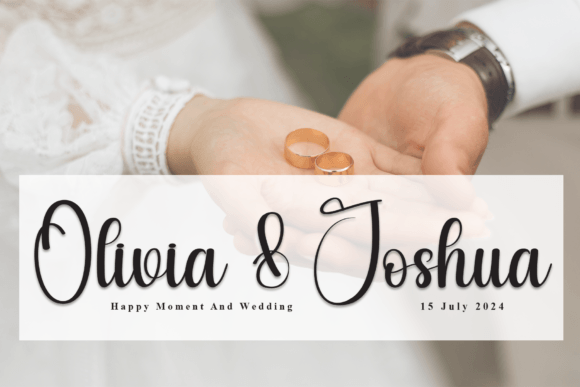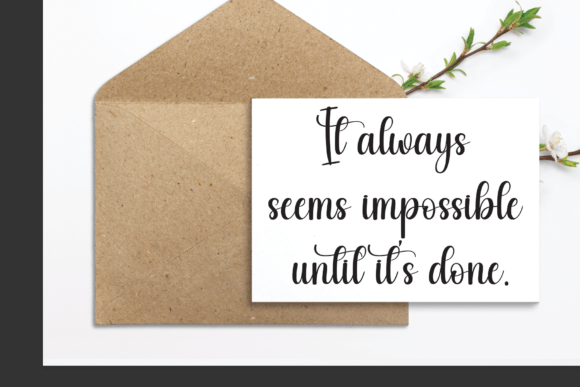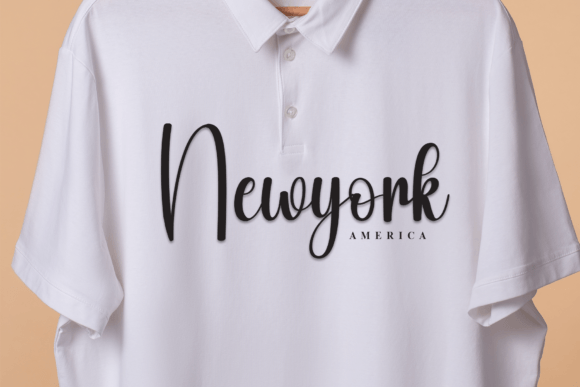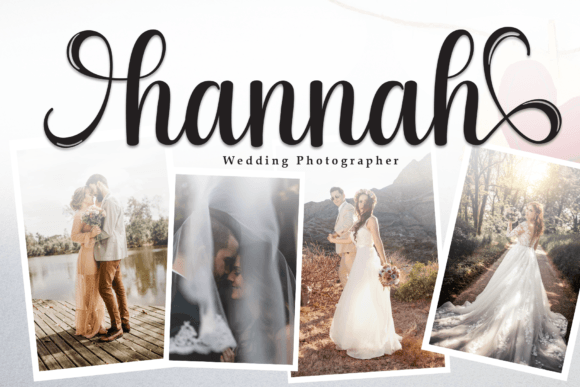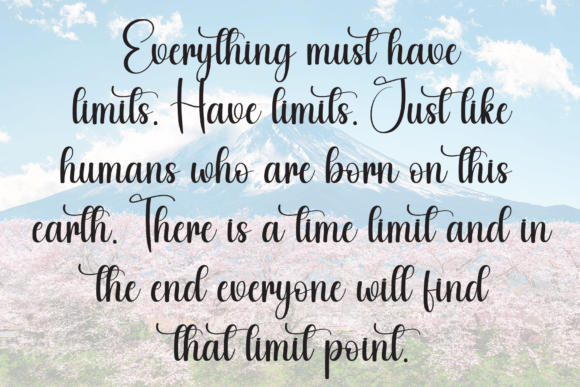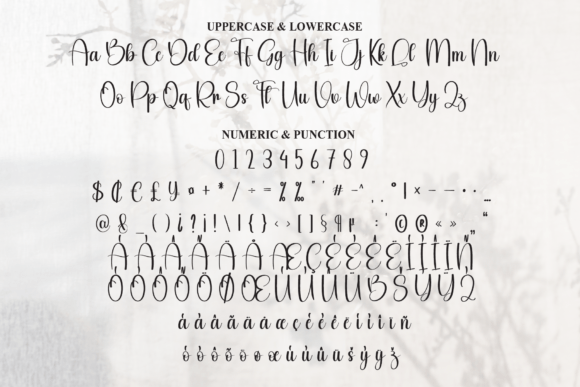
Discover the Charm of Bestina Font: Elevate Your Designs with a Personal Touch
In the world of typography, few fonts manage to capture the essence of natural, flowing script as beautifully as Bestina Font. This charming handwritten font is designed to bring a personal, artistic touch to a wide range of projects, from invitations and notes to comprehensive designs that demand a warm, human feel. Whether you’re a professional designer looking for that perfect finishing touch or a crafter aiming to add a unique element to your handmade creations, Bestina Font is an exceptional choice.
The Essence of Bestina Font
Bestina Font stands out for its elegant yet casual appearance, mimicking the fluidity and imperfections of natural handwriting. Its characters are crafted to connect seamlessly, creating a continuous flow that is both soothing and visually appealing. This font’s versatility makes it suitable for various applications, including:
- Invitations: Whether it’s a wedding invitation, a birthday party invite, or any other celebratory announcement, Bestina Font adds a touch of warmth and personality.
- Notes and Letters: In an era dominated by digital communication, handwritten notes and letters have become treasured keepsakes. Bestina Font can transform your digital messages into pieces that feel genuinely handcrafted.
- Design Projects: For designers, Bestina offers a unique element to incorporate into branding, packaging, and marketing materials, providing a distinctive and memorable aesthetic.
- Crafting and DIY: Crafters and DIY enthusiasts can use Bestina Font in their projects, such as handmade cards, journals, and scrapbooking, to add a personalized and artistic flair.
Why Choose Bestina Font?
There are several reasons why Bestina Font has become a favorite among designers and crafters:
- Unique Aesthetic: Bestina offers a unique, handcrafted look that sets it apart from more conventional fonts. Its natural flow and charm can elevate any project.
- Versatility: The font’s adaptability means it can be used in a variety of contexts, from formal to informal, and still convey a sense of warmth and approachability.
- Ease of Use: Bestina Font is easy to read and understand, making it accessible for a wide audience.
- Customization: Depending on the project requirements, Bestina can be adjusted in size, color, and style to perfectly match the desired mood and theme.
Tips for Using Bestina Font Effectively
To maximize the impact of Bestina Font in your projects, consider the following tips:
- Pair with Complementary Fonts: When combining Bestina with other fonts, choose ones that complement its handwritten feel. Sans-serif fonts often provide a clean contrast.
- Adjust Line Spacing: For better readability, ensure there’s adequate space between lines. This is particularly important for longer texts.
- Play with Colors: While black or dark colors work well for most projects, don’t hesitate to experiment with colored ink or digital overlays to match your project’s theme.
- Emphasize with Size: Use size variations of Bestina Font to emphasize certain parts of your text, such as headings or key messages.
Bestina Font offers a refreshing alternative to standard typography, bringing a personal and artistic touch to any project. Its natural, flowing script and charming aesthetic make it an ideal choice for designers and crafters looking to add warmth and personality to their work. Whether you’re creating invitations, notes, or comprehensive design projects, Bestina Font is sure to leave a lasting impression.
Embrace the beauty of handwritten typography with Bestina Font and discover a world of creative possibilities at your fingertips.